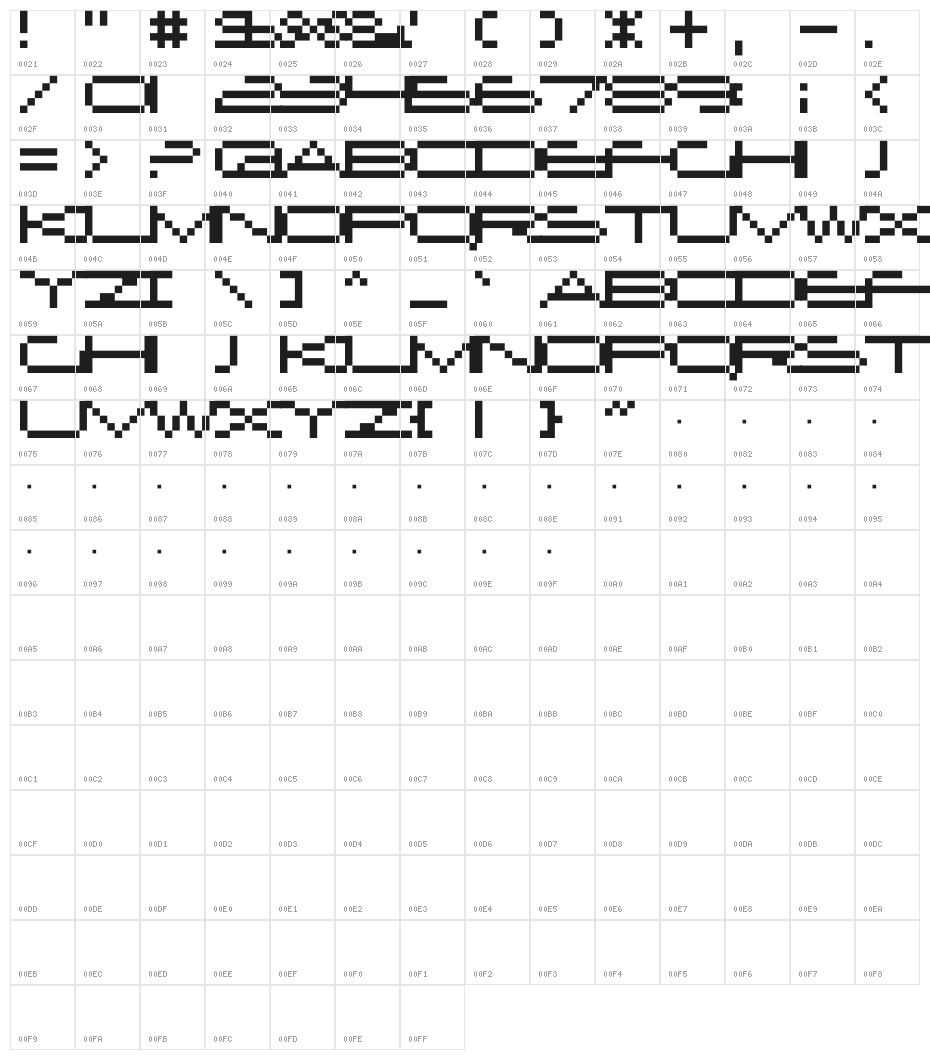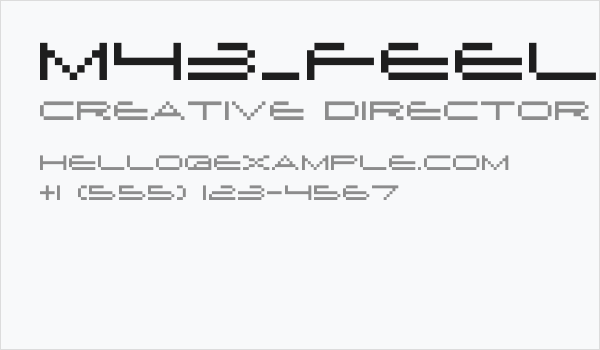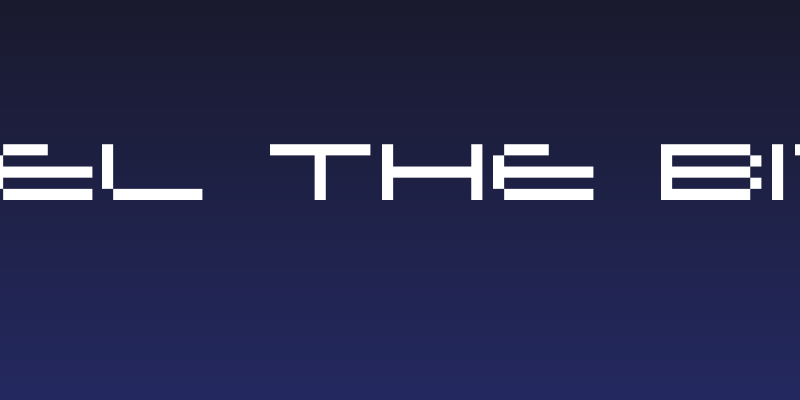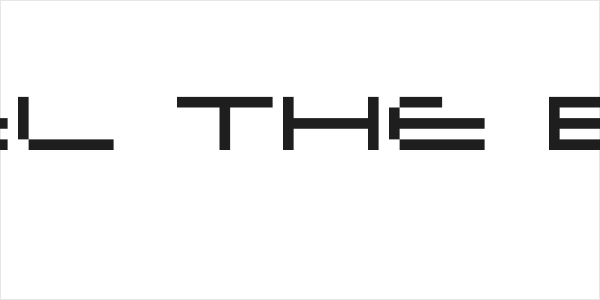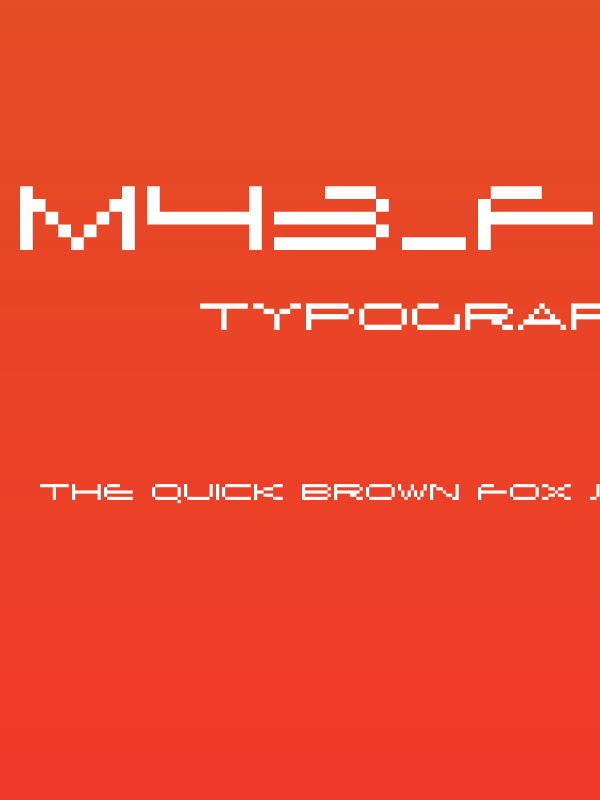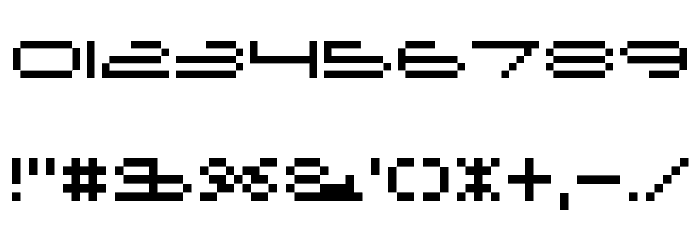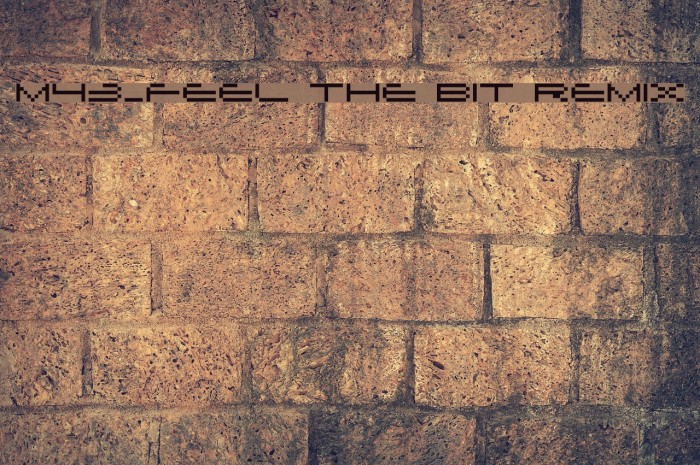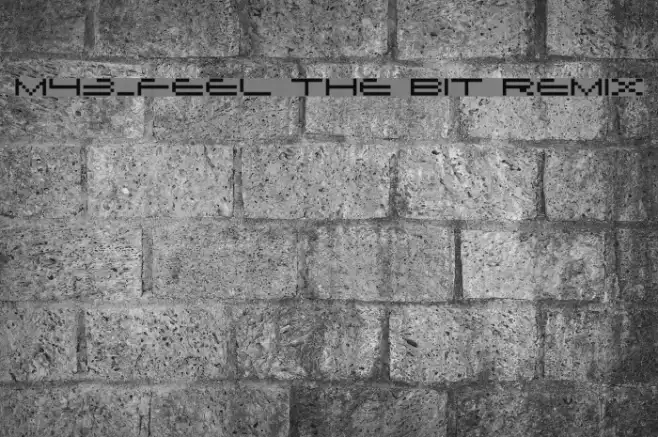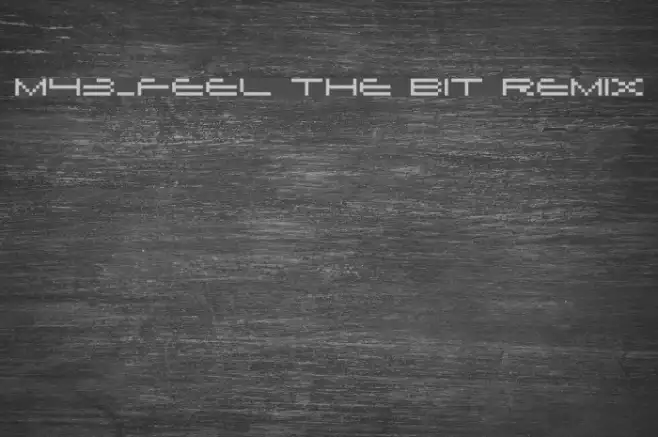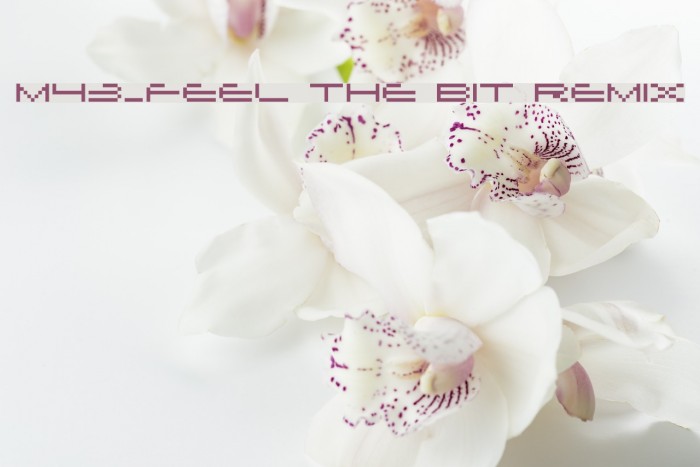
M43_FEEL THE BIT REMIX Font
M43_FEEL THE BIT REMIX Description
This font features a distinct pixelated style reminiscent of early digital displays and retro video games. Each character is constructed with a grid-like precision, giving it a blocky, geometric appearance. The uppercase and lowercase letters maintain a consistent height, enhancing the uniformity of the design. Numbers and special characters follow the same pixelated theme, ensuring a cohesive look across all glyphs. The font's unique aesthetic makes it ideal for projects that aim to evoke a sense of nostalgia or a tech-inspired theme.
| Overall Style | Retro, Digital |
| Proposed Projects | Ideal for retro video game designs, tech-themed posters, digital art projects, and nostalgic branding. |